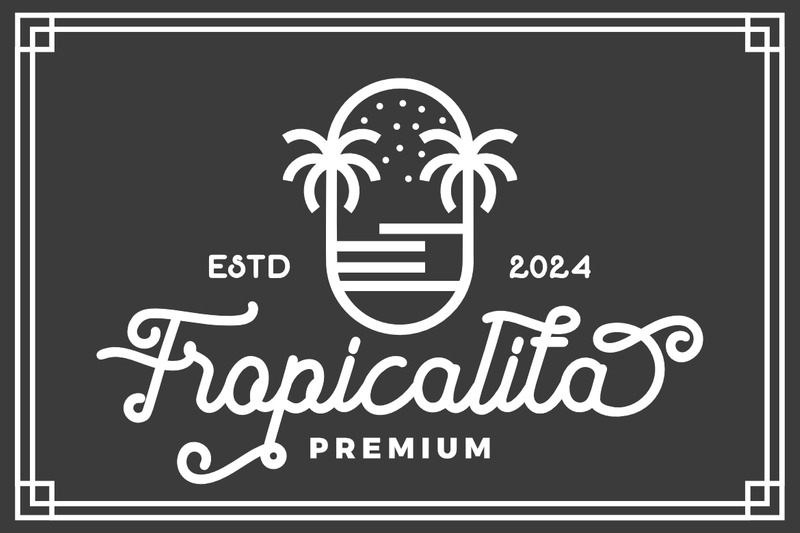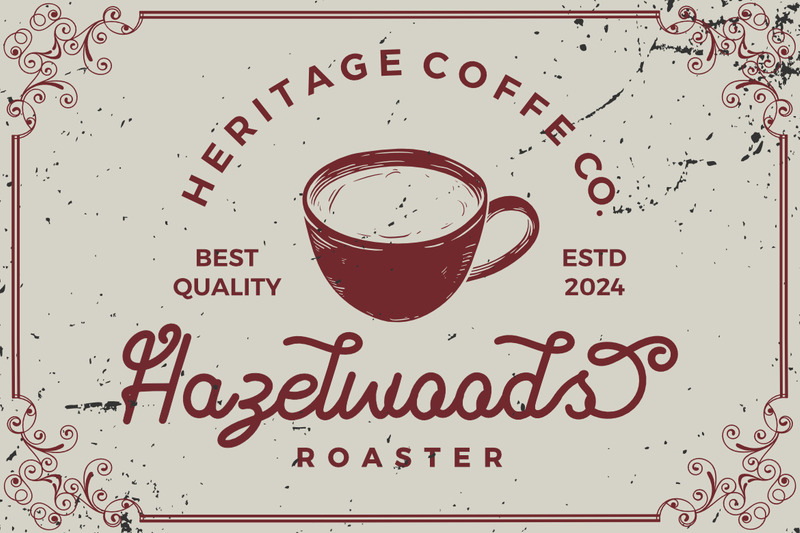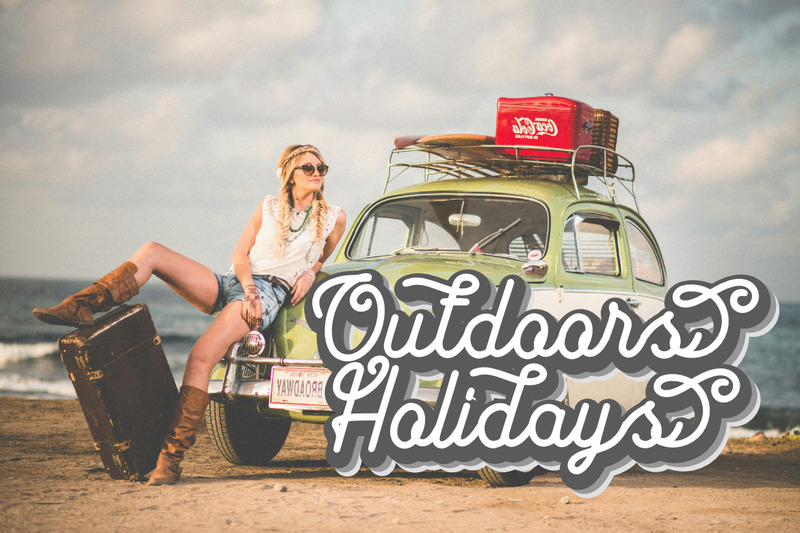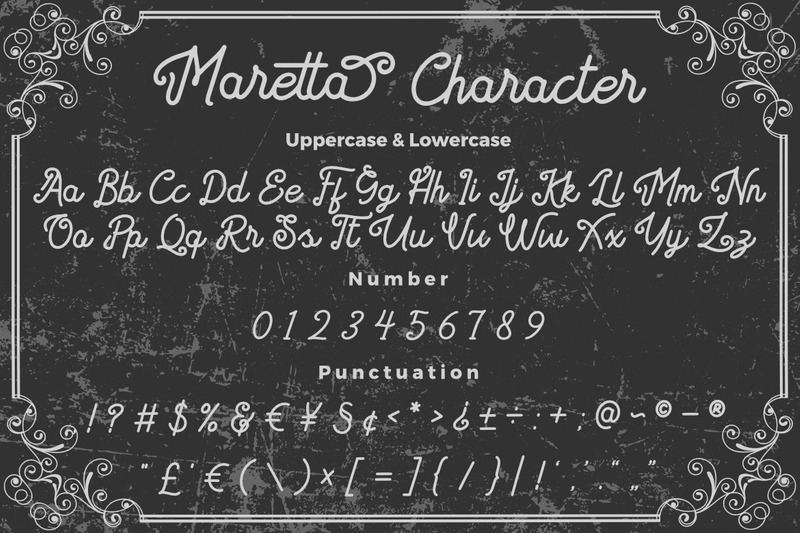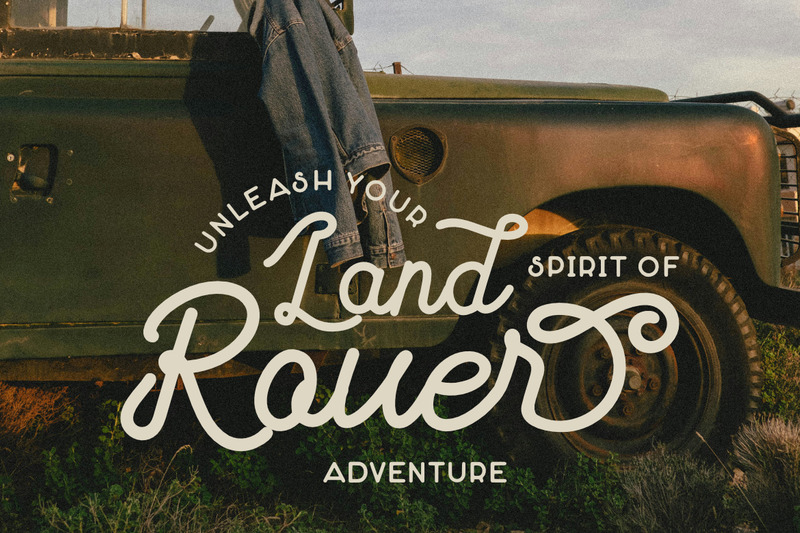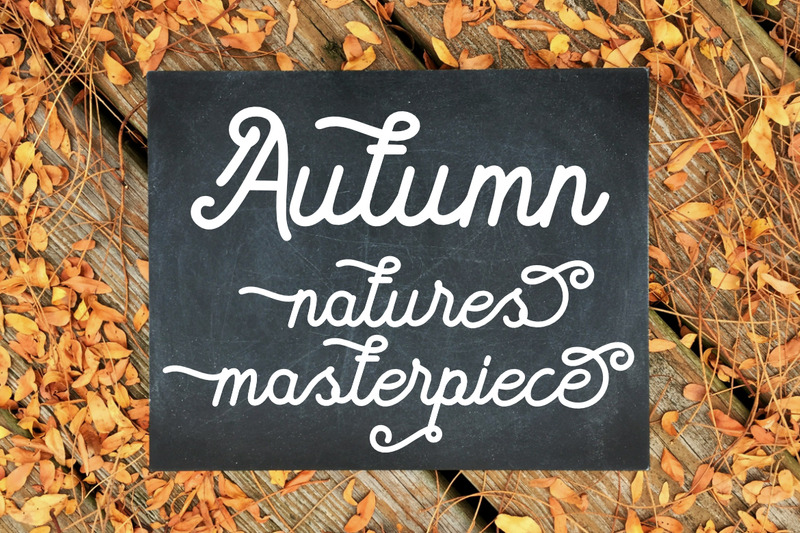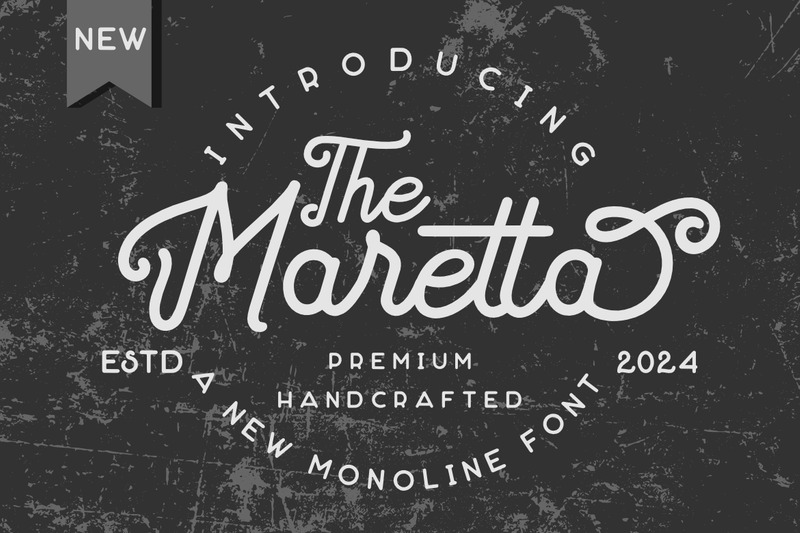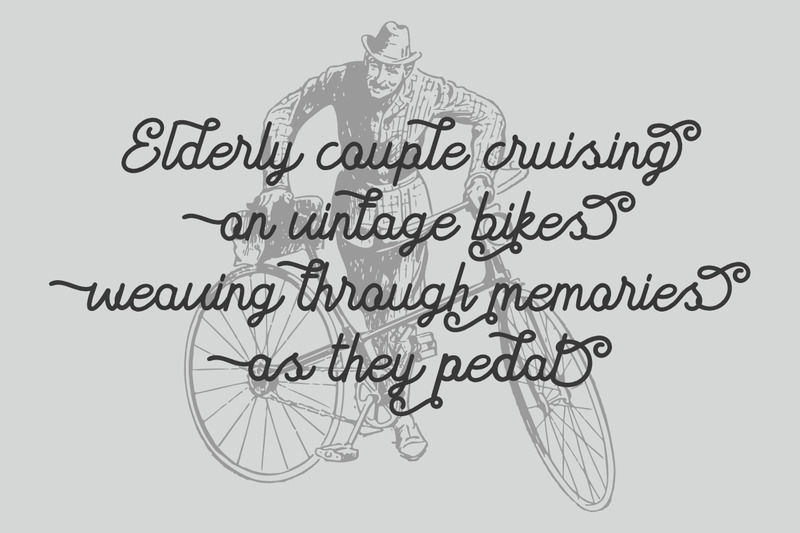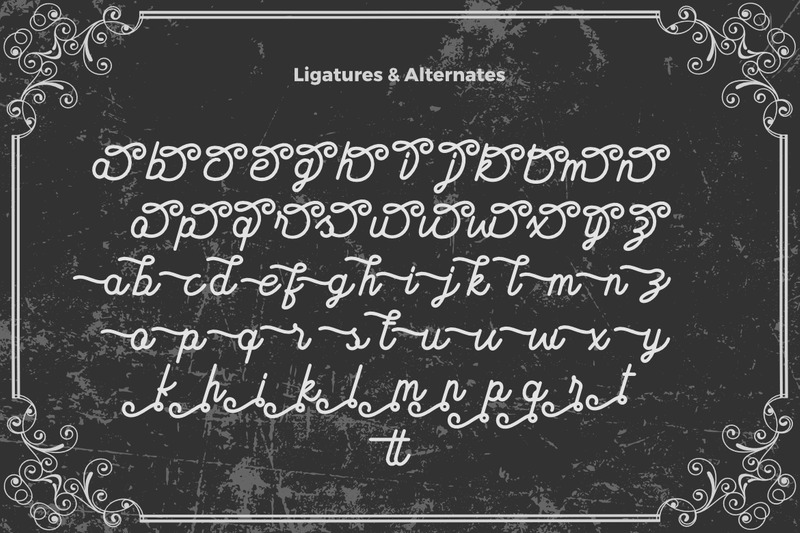
The Maretta a New Monoline Font
**The Maretta**, This font is made with a high premium quality level which you can use as flyers, quotes, posters, banners, packaging, merchandise, logotypes and much more.
**FEATURES :**
* Uppercase
* Lowercase
* Number
* Punctuation
* Multilingual